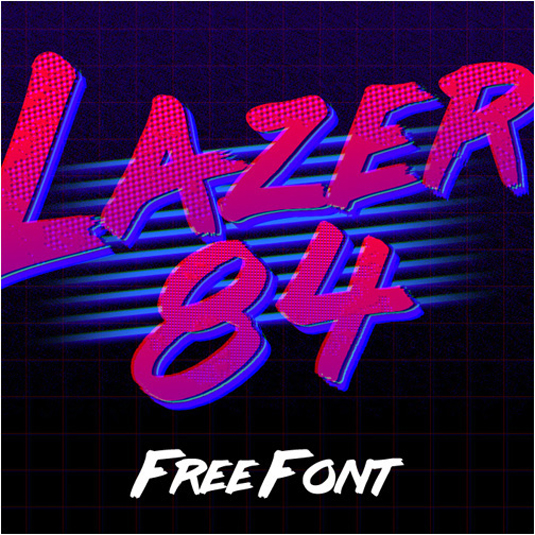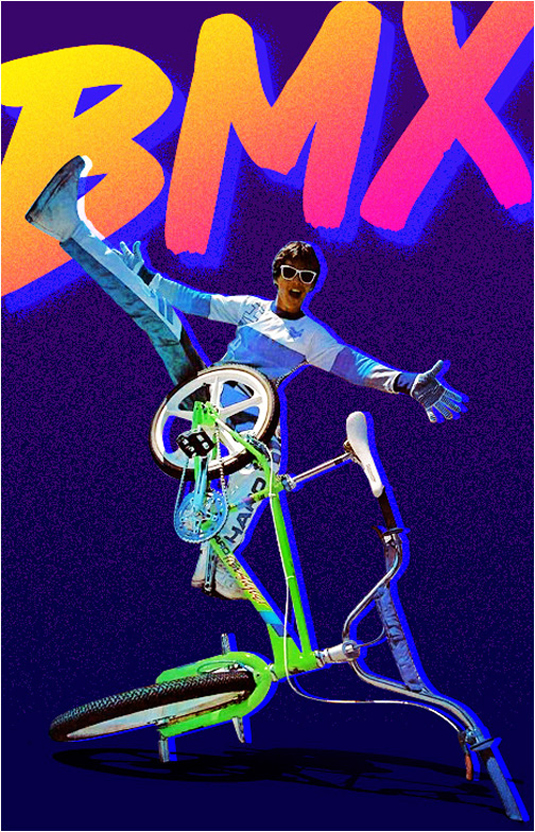
Font of the day: Lazer 84
Lazer 84 by Juan Hodgson
Transport yourself back in time with today's typeface of choice, Lazer 84. Created by art director Juan Hodgson, Lazer 84 is a retro-style brush font inspired by the 80s.